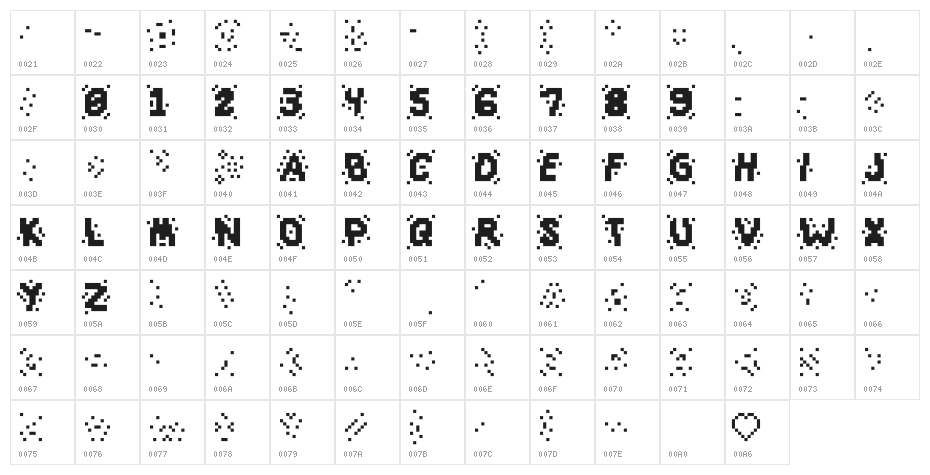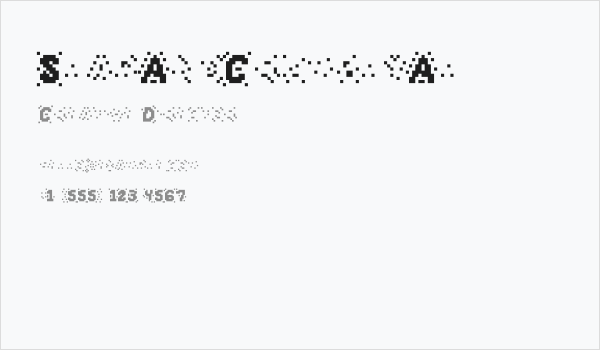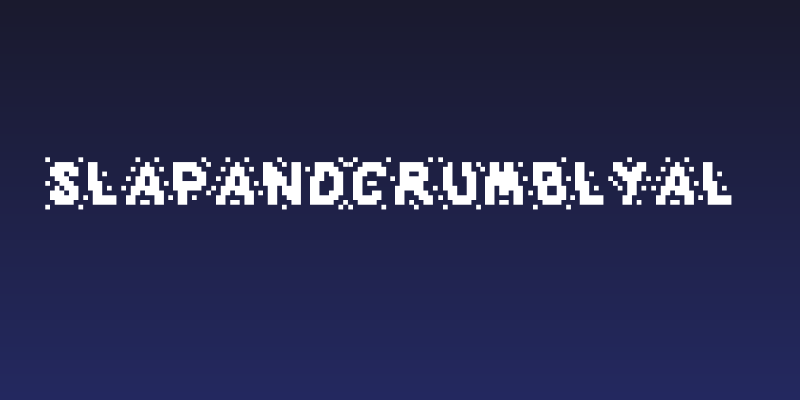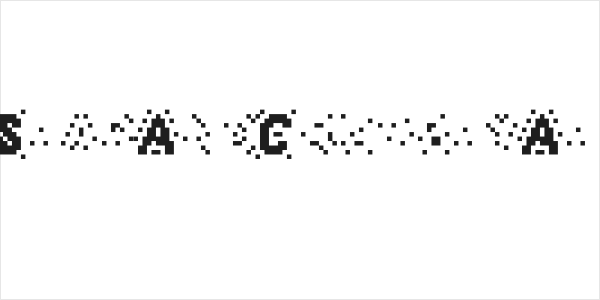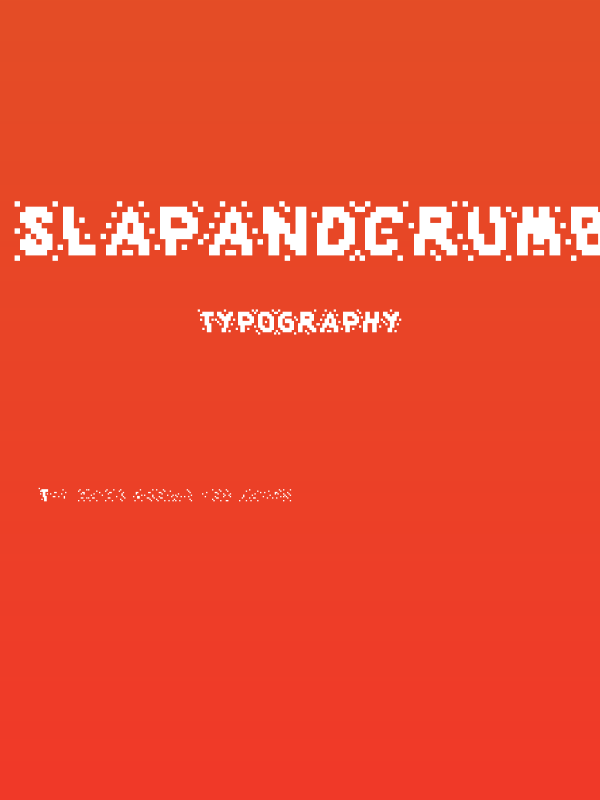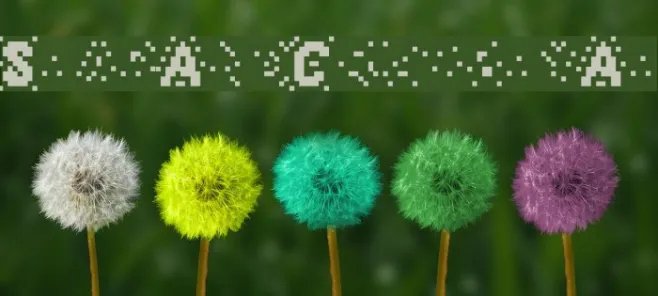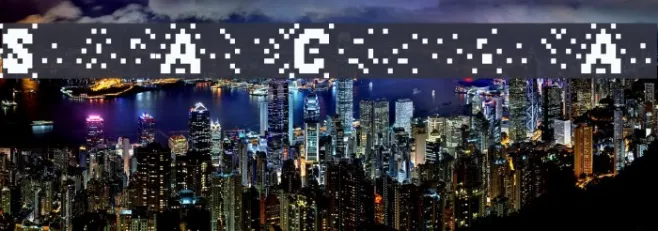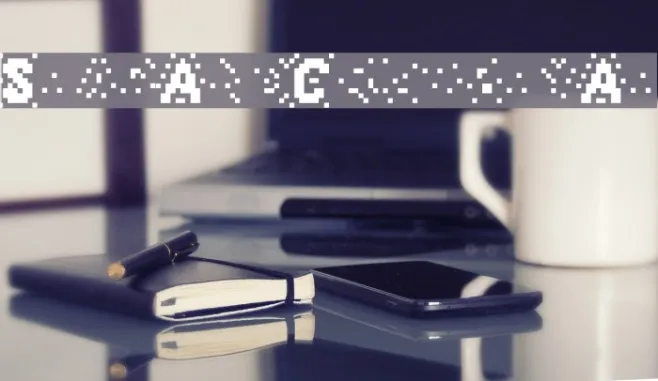
SlapAndCrumblyAl Font
SlapAndCrumblyAl Description
This font features a unique, pixelated style that evokes a retro, digital aesthetic reminiscent of early computer graphics. Each character is composed of small, square blocks, creating a distinct, fragmented appearance. The uppercase letters are bold and prominent, while the lowercase letters maintain the same pixelated structure but with a slightly reduced height. Numbers and special characters follow the same design principles, ensuring consistency across all glyphs. The overall effect is both playful and nostalgic, making it ideal for projects that aim to capture a vintage digital feel.
| Use Case | Headlines, Logos, Digital Art |
| Proposed Projects | Ideal for video game design, retro-themed posters, digital art projects, and any creative work that seeks to evoke a sense of nostalgia for early digital aesthetics. |